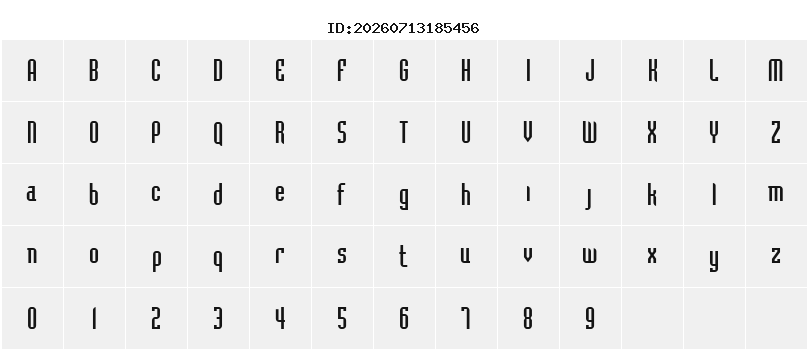
Baccus Preview
• Font Name: Baccus
• Font ID: Weatherly Systems, Inc. Baccus Regular
• Full Font Name: Baccus Regular
• PostScript Name: Baccus
About Baccus.ttf
Baccus.ttf is a modern, elegant sans-serif font designed for ultimate readability and visual harmony. Perfect for branding, headlines, web design, and print materials.